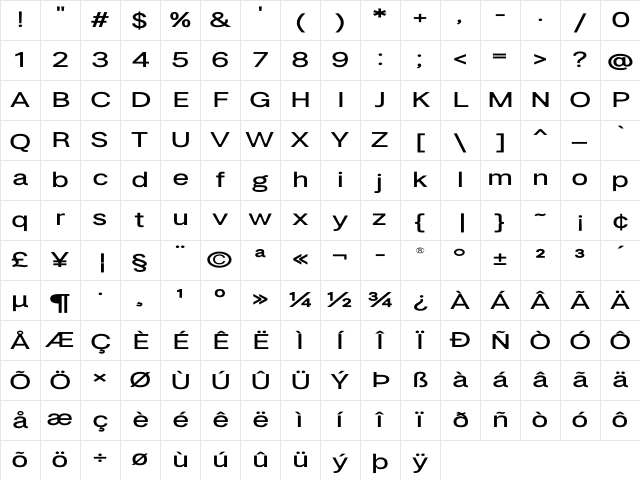
Complete LT Amber Wide Extra-expanded Demi-bold glyph index. Displaying only characters natively supported by LT Amber Wide Extra-expanded Demi-bold font.
LT Amber Wide is a composed and adaptable typeface that performs quietly and consistently across a wide range of design contexts. Its bold stroke weight gives it real presence on the page.